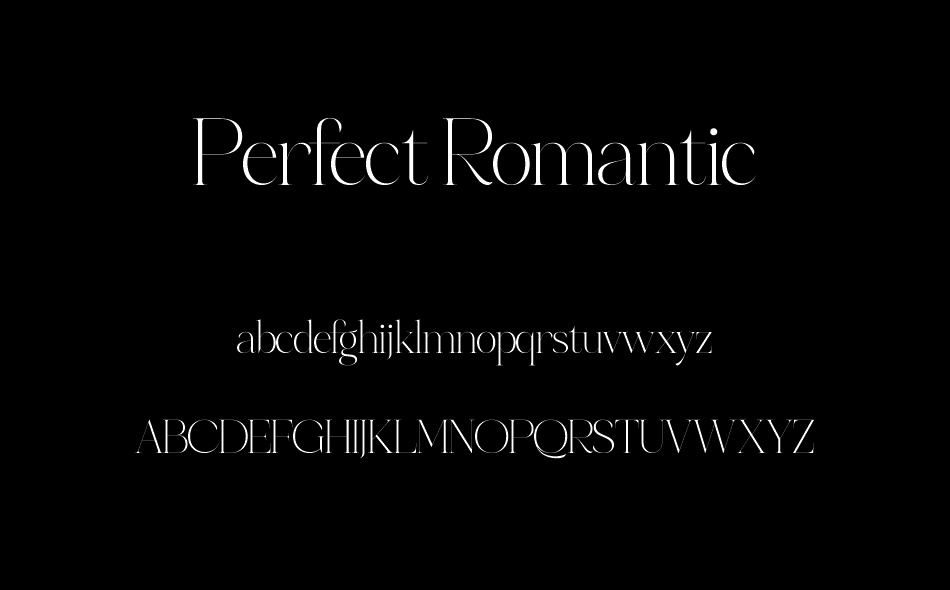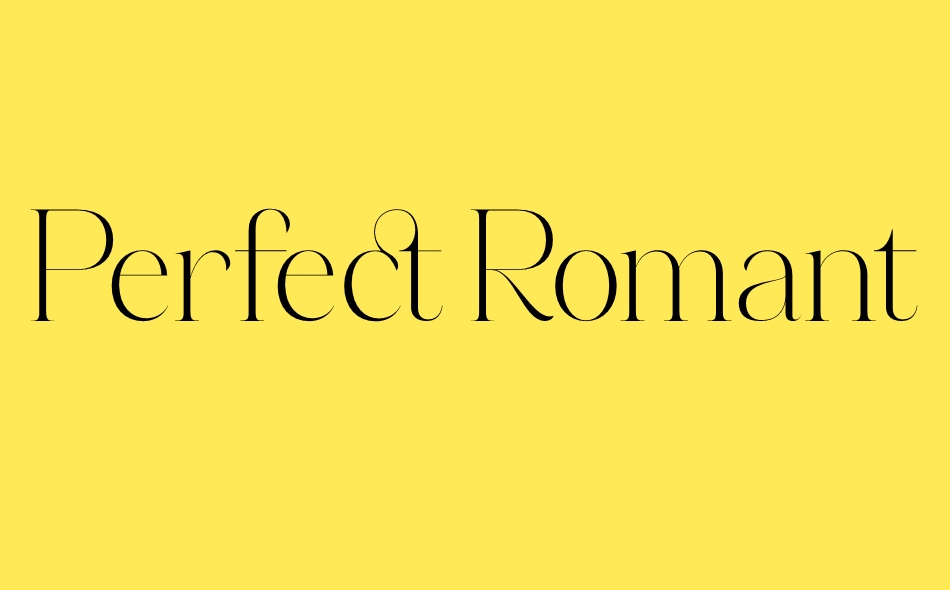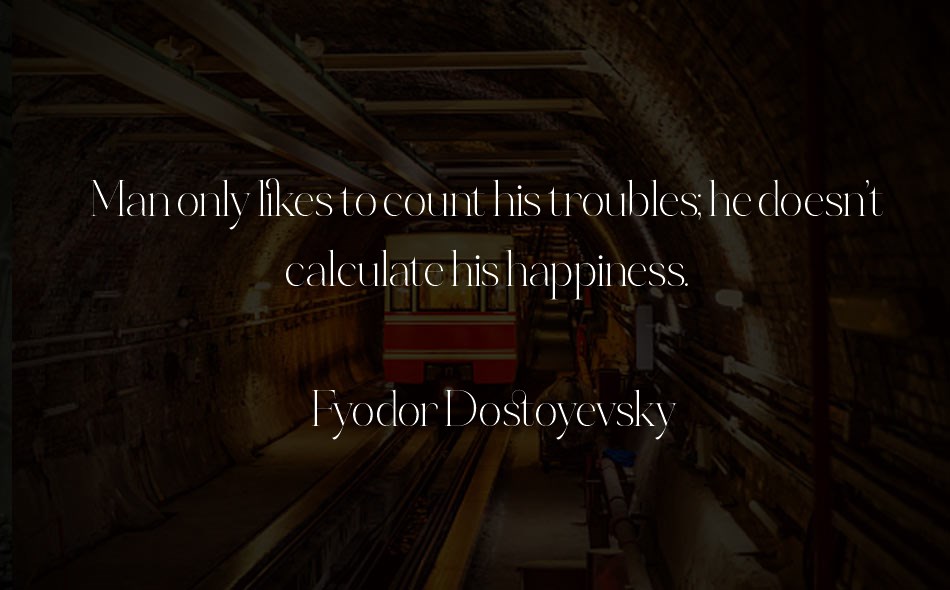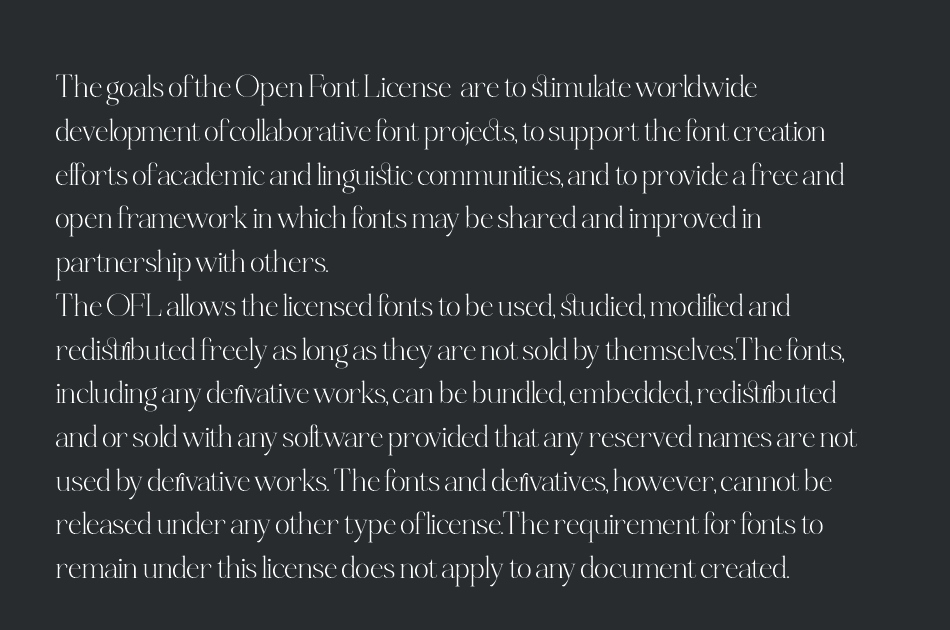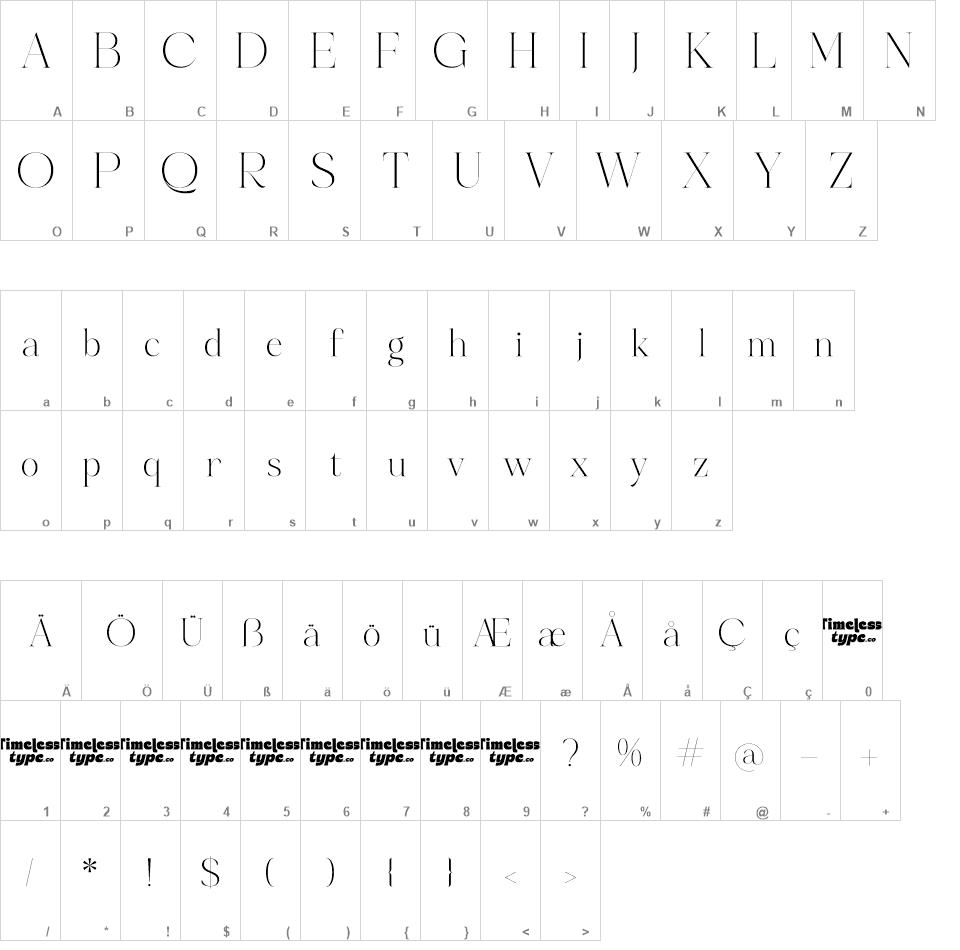
Perfect Romantic font
Perfect Romantic - Modern Serif
Unlock unparalleled visual drama with Perfect Romantic - Modern Serif. This typeface is a masterclass in balance, merging the classic precision of a modern serif with a distinctively romantic and whimsical undertone. Its characters feature exaggerated high-contrast strokes and delicate terminals that instantly command attention, delivering an aesthetic that is both sophisticated and invitingly playful. It is meticulously designed specifically for maximizing visual impact in display settings and high-profile creative projects.
Expand your creative toolkit instantly with its vast array of OpenType features. Perfect Romantic - Modern Serif includes over 42 bespoke ligatures and 60 stylistic alternates, allowing designers to craft truly unique logotypes and headlines. These customizable swashes and flourishes transform standard text into expressive artwork, providing exceptional typographic flexibility essential for distinctive project branding and personalized design narratives.
Ensure your brand message resonates globally without compromise. With its extensive multilingual support, Perfect Romantic - Modern Serif adapts seamlessly across global markets, making it incredibly versatile for international projects. This comprehensive language coverage guarantees that the font's inherent luxury and elegance are perfectly preserved, regardless of the target language or regional requirement, offering true worldwide design compatibility.
Choose the definitive typeface for projects requiring elevated refinement. Perfect Romantic - Modern Serif is absolutely perfect for luxury branding, high-end product packaging, elegant fashion editorial design, and sophisticated wedding invitations. Its memorable curves and high legibility at display sizes establish an atmosphere of exclusive quality, making it the premier choice for designers seeking a font that delivers both charm and commercial appeal.